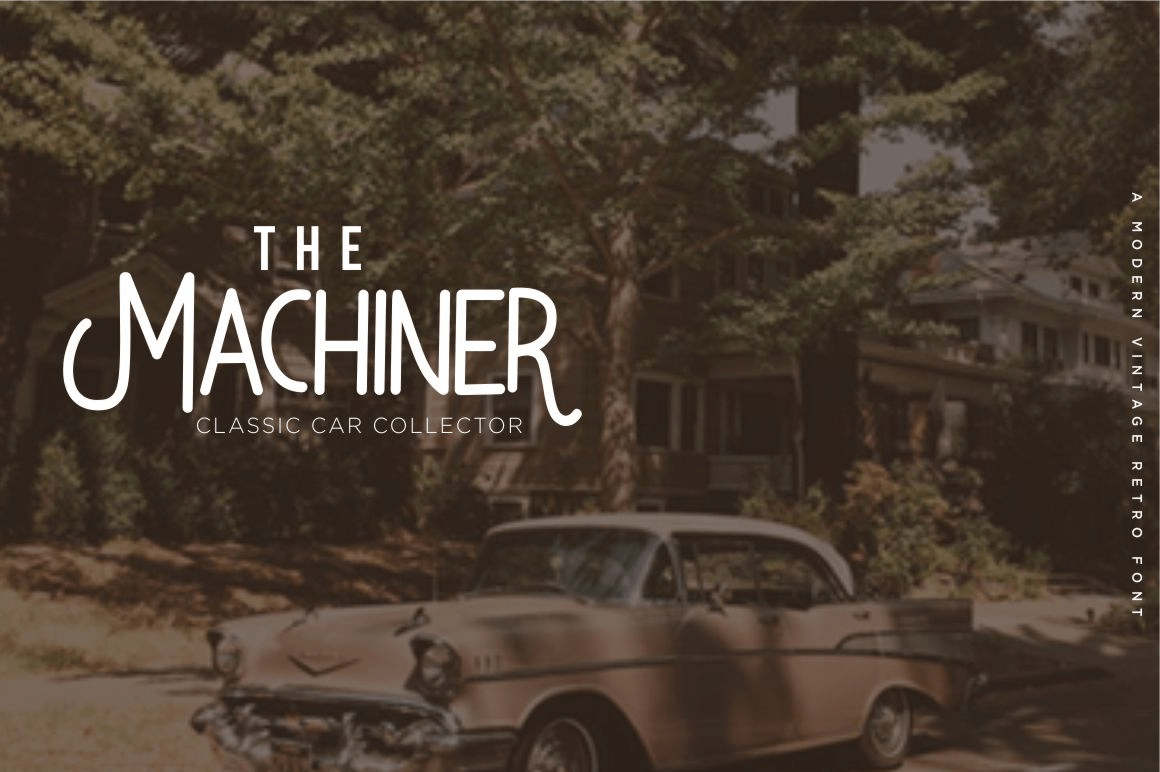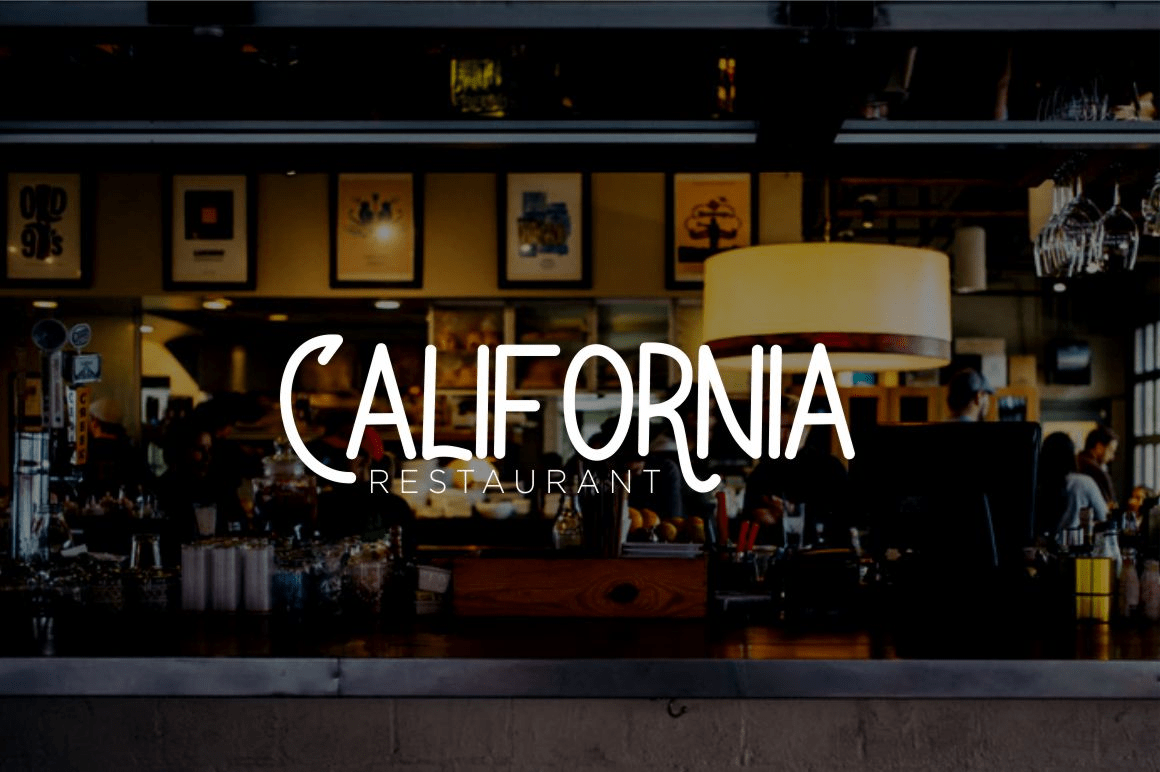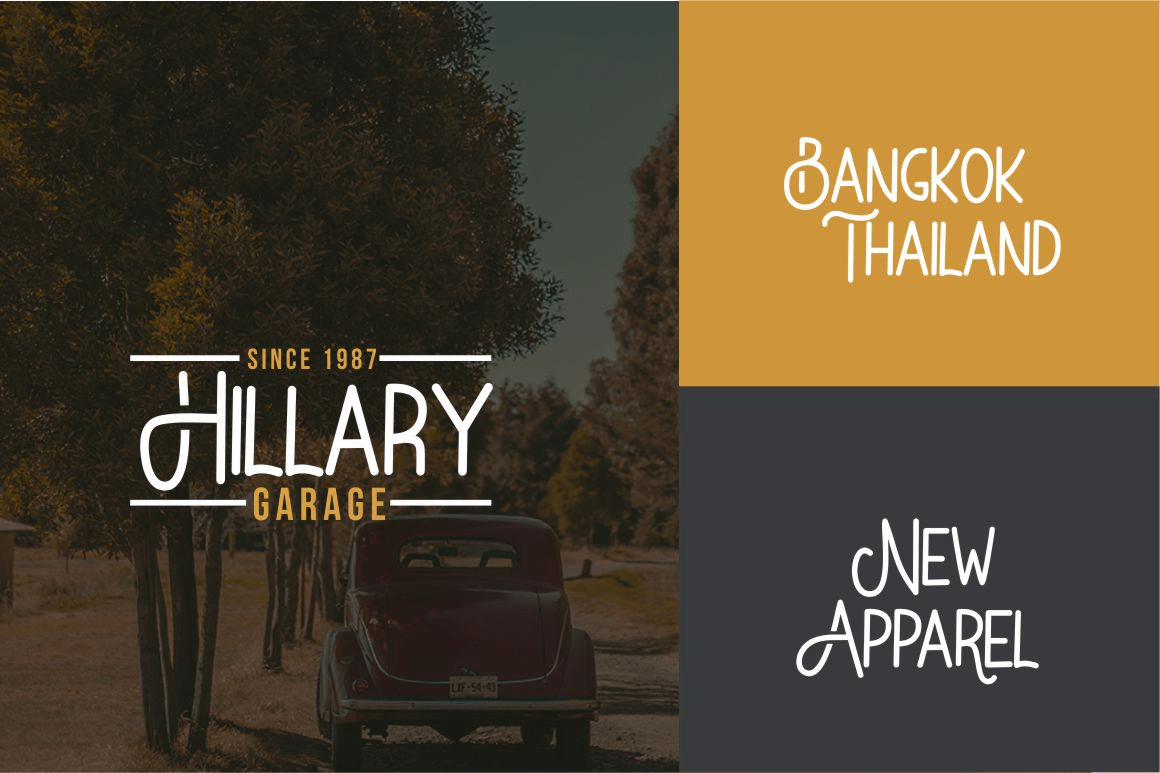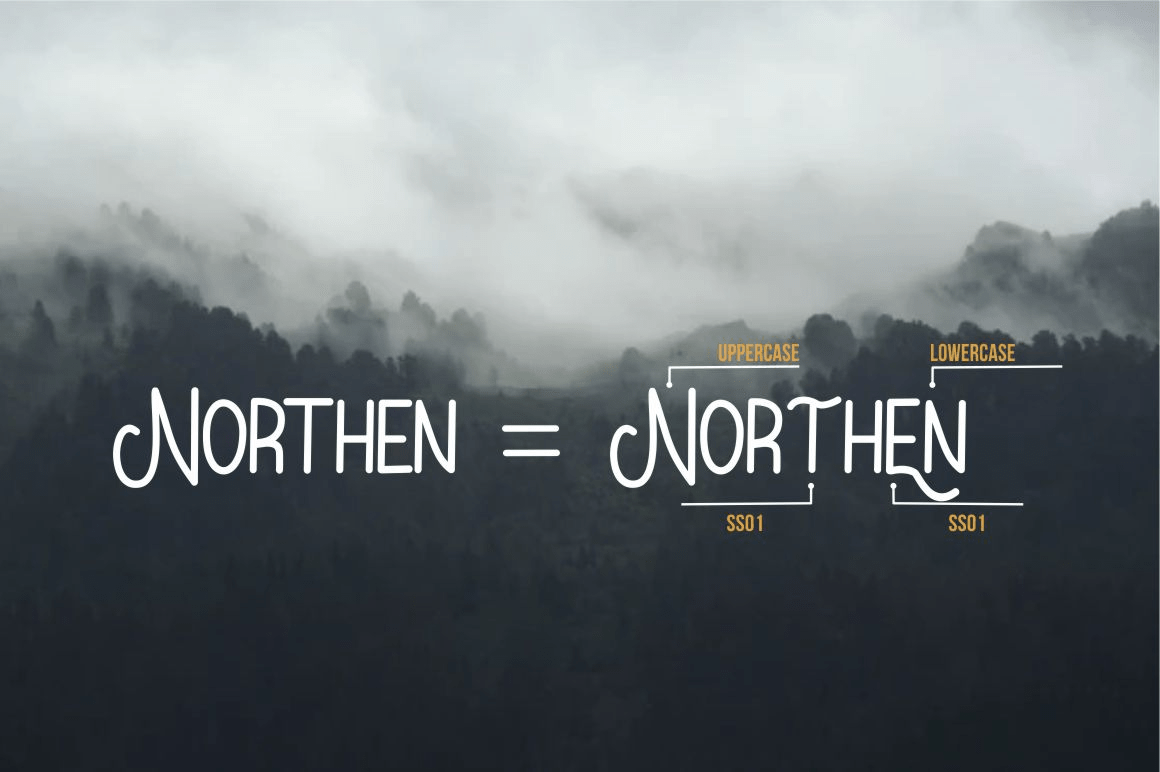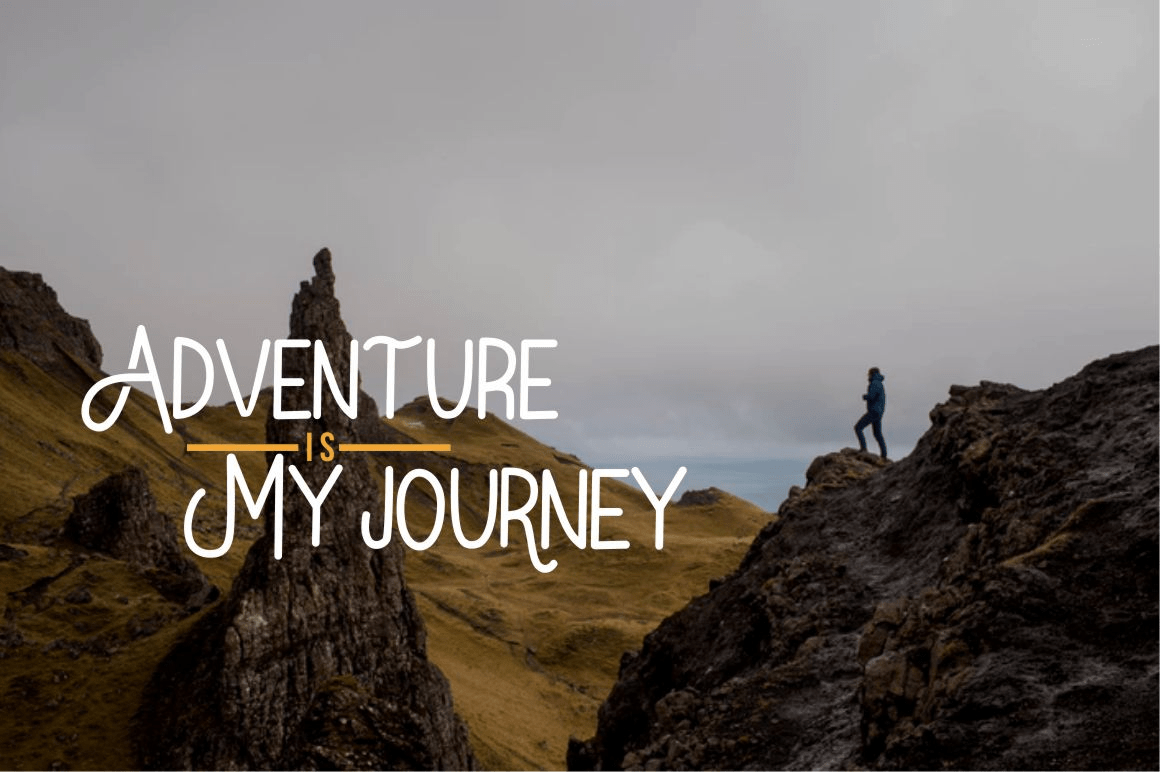
About Bataler
Bataler is a vintage retro font with elegant and professional style, perfect for adding some romance and charm to your designs. This script functions most strongly as a display or headline font, suitable for logos, logotype, branding, wedding, fashion…